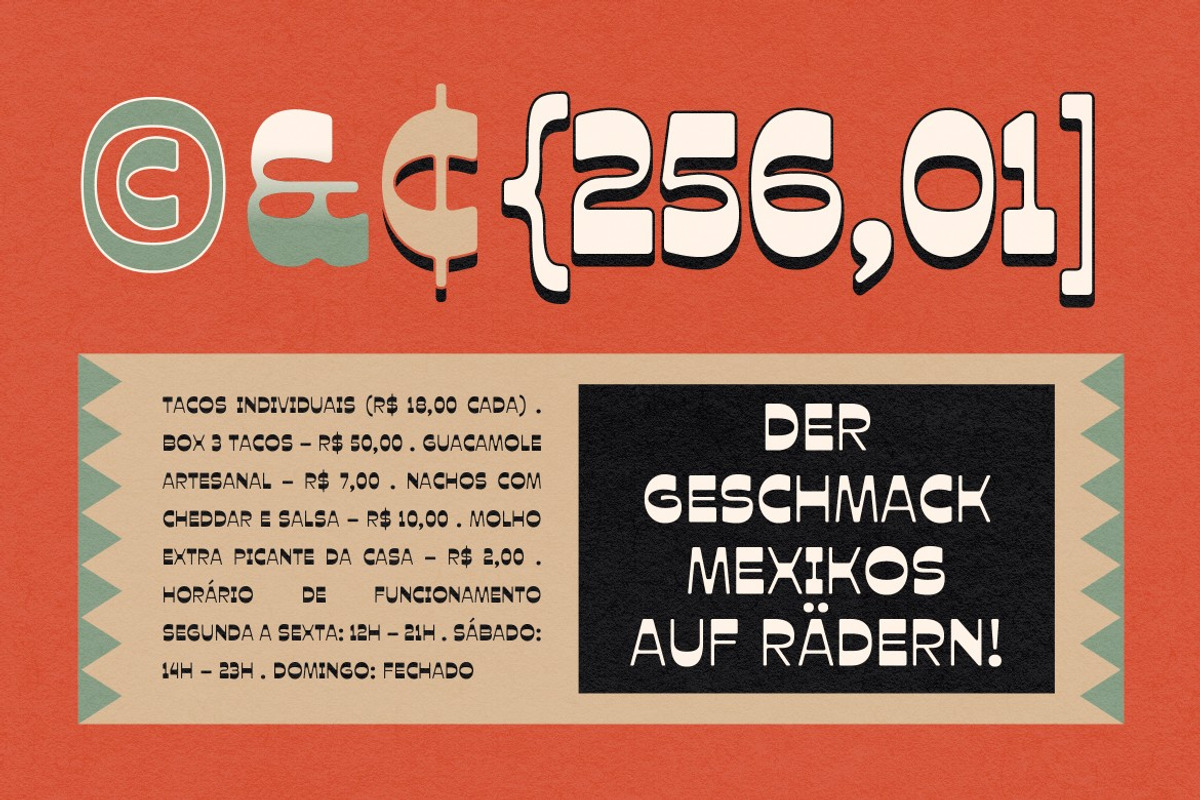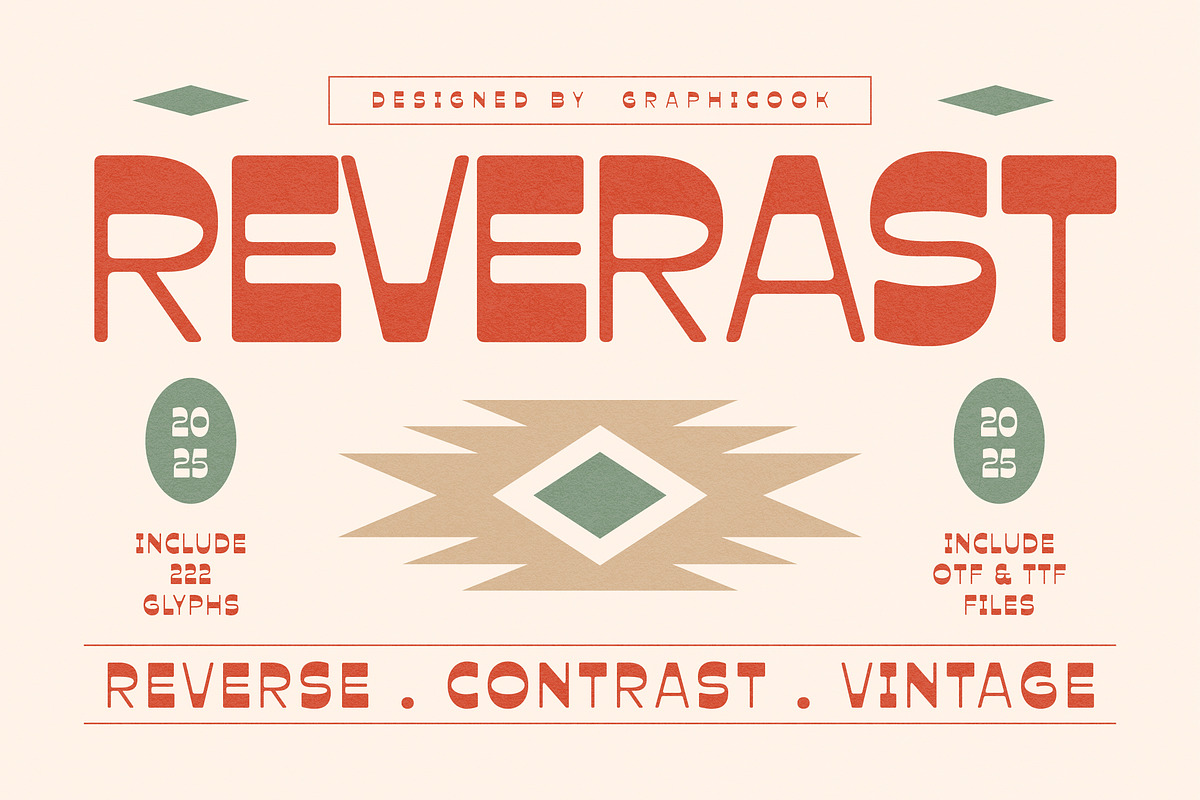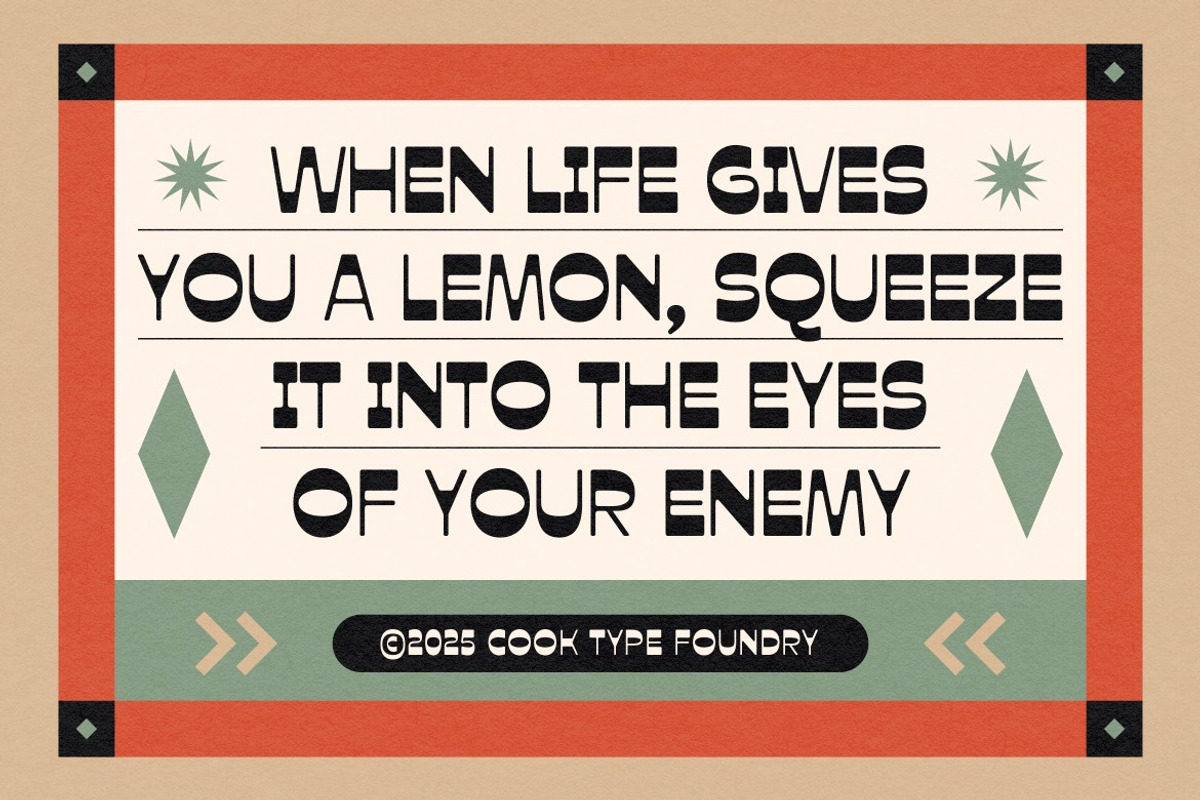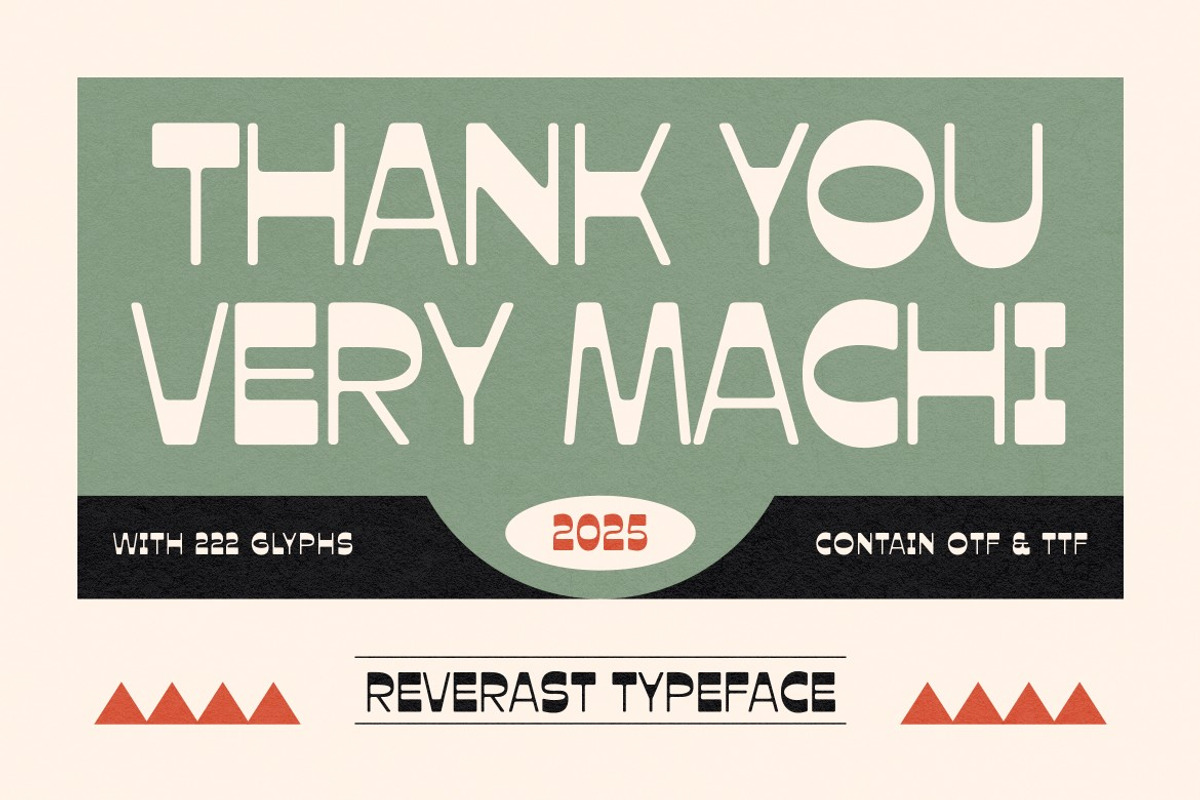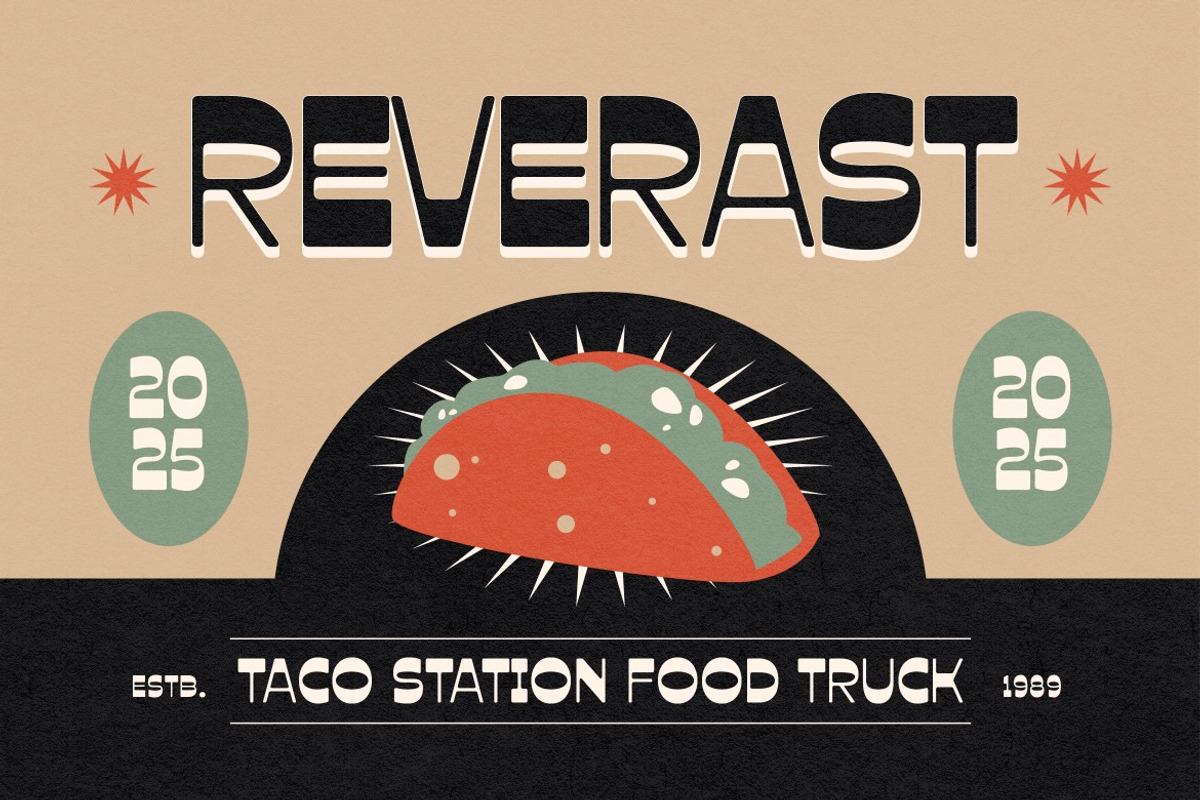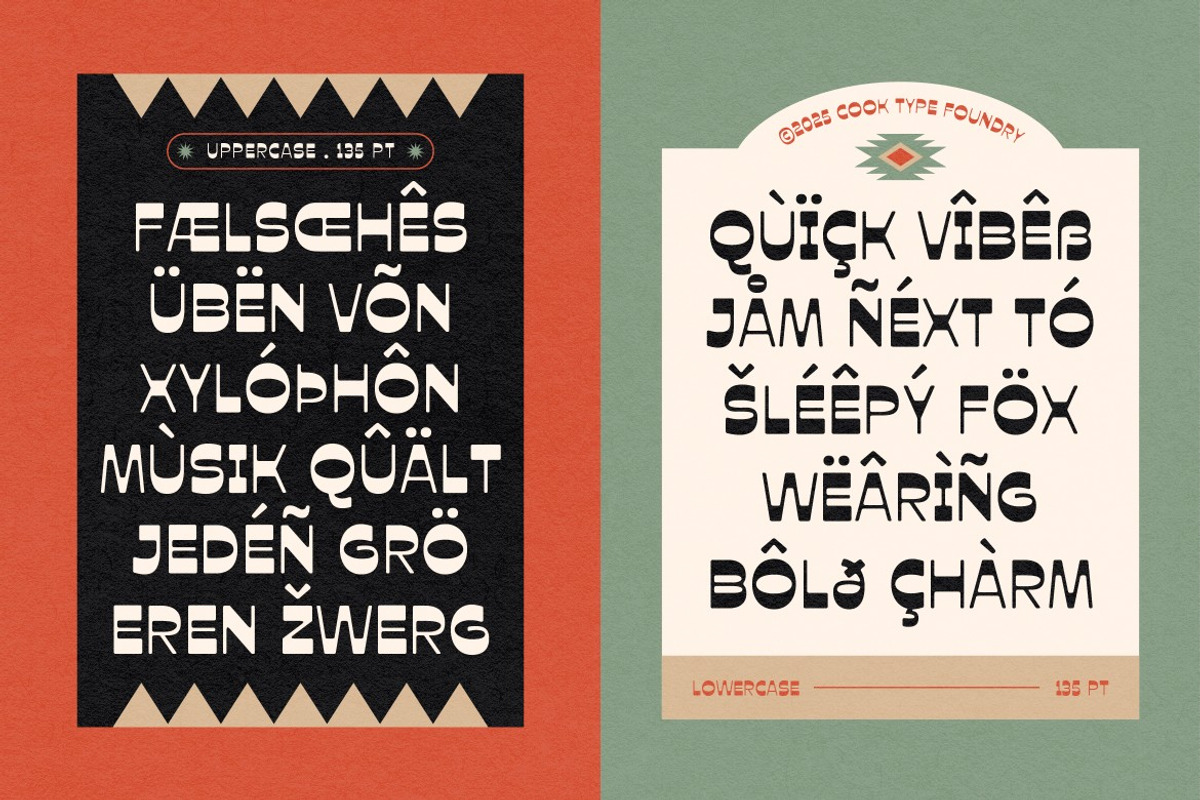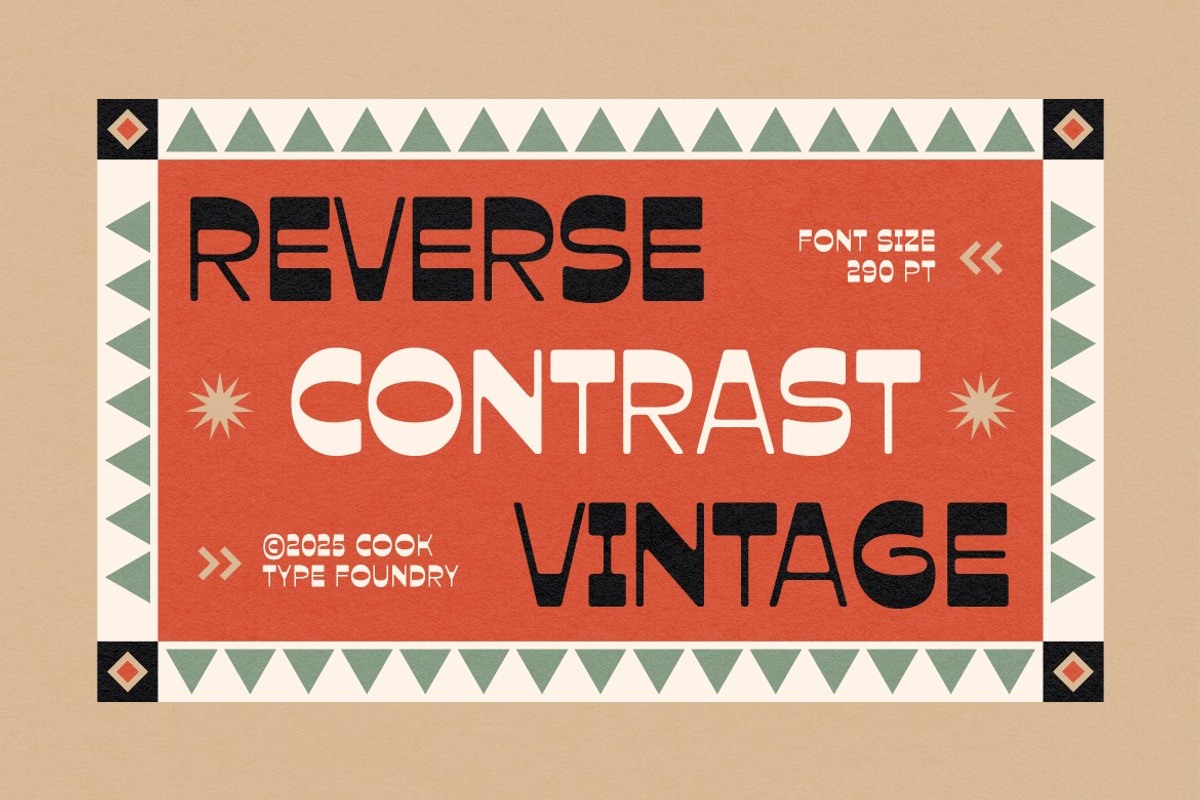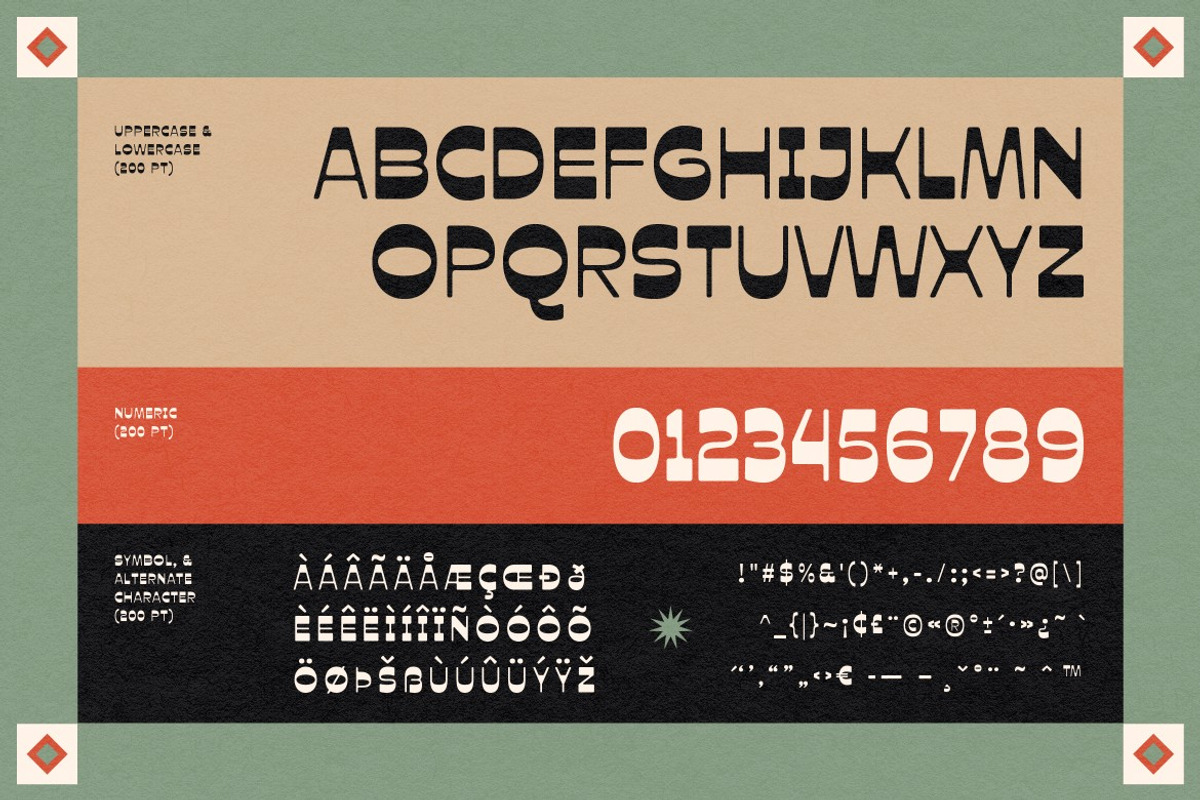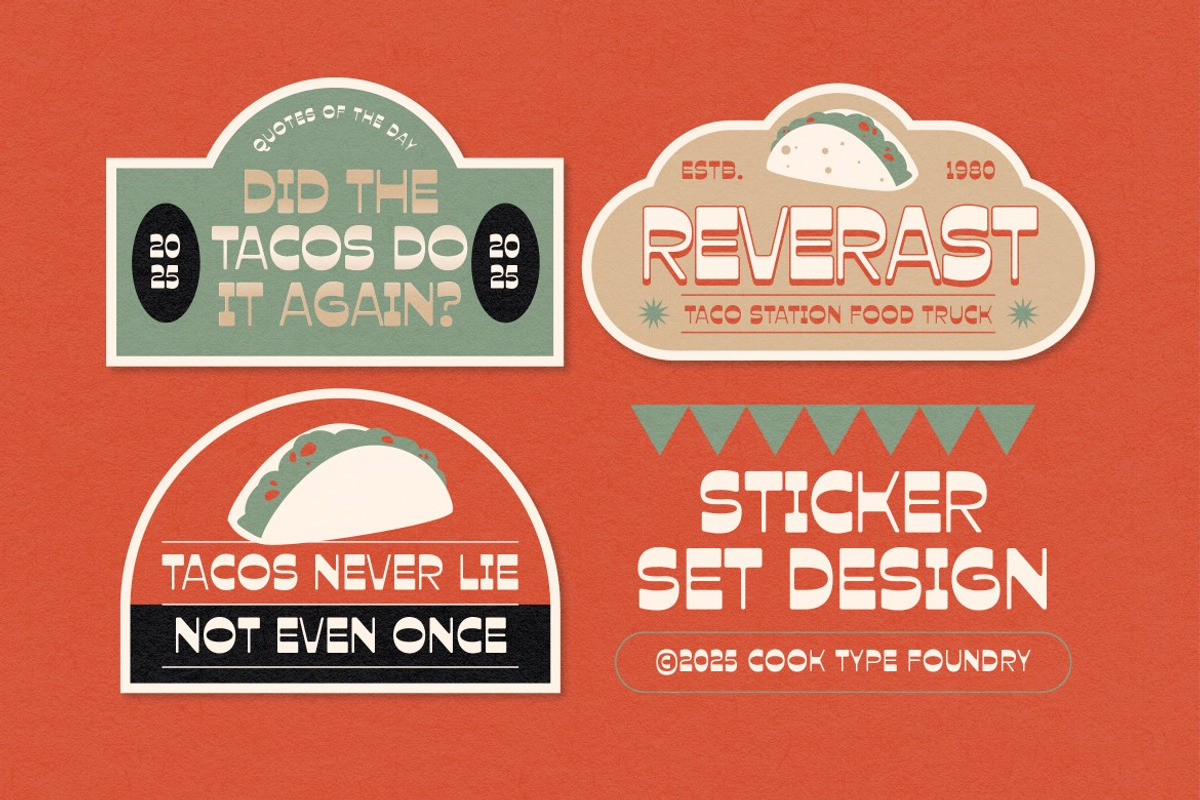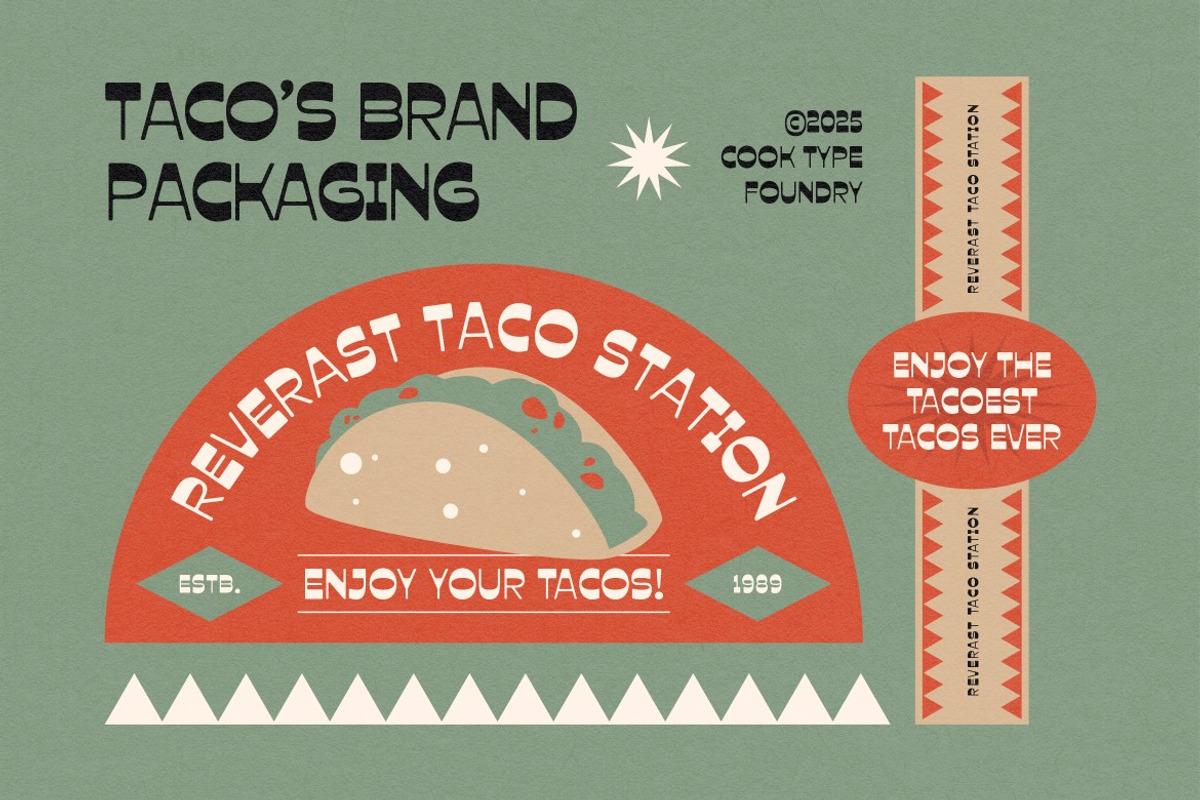
Reverast
Reverast is a reverse-contrast display font with bold, distinctive shapes. Its thick horizontals and thin verticals create a playful retro charm, ideal for posters, logos, packaging, and standout visual projects.
It is perfect for headlines, logotypes, magazines, packaging, quotes, movies, games, cover albums, book covers, and flyers, it's a perfect solution for creating eye-catching designs that stand out in any context.